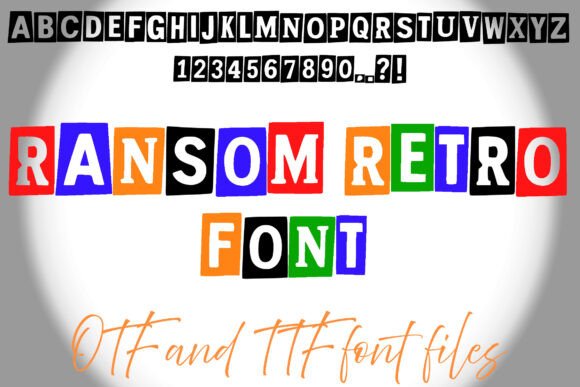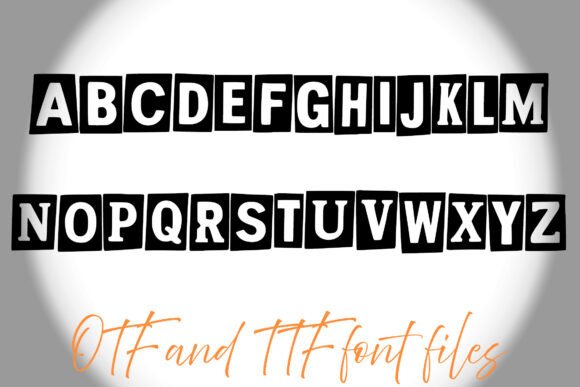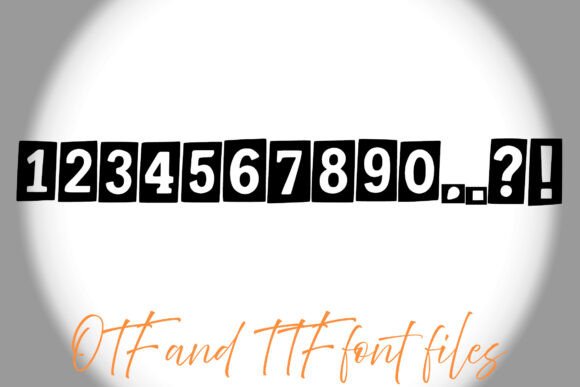
Ransom Retro Font
About the Ransom Retro Font
Welcome to the world of Ransom Retro Font, a typeface that will inspire your next great project. Make a bold and edgy statement with Ransom Retro Font! Inspired by vintage ransom notes and collage art, this funky font mixes styles and colors for a retro-inspired, high-impact design—ideal for album covers, zines, posters, or rebellious branding.
Ransom Retro thrives in headline applications, short impactful statements, and branding projects that demand a bold, rebellious aesthetic. It excels on posters, album art, and packaging where its unique character can shine. However, its highly stylized nature makes it unsuitable for body text or lengthy paragraphs; readability suffers at smaller sizes.
Consider pairing Ransom Retro with a clean sans-serif like Open Sans for a balanced contrast, or a geometric sans-serif for a more modern feel. A classic serif such as Garamond could add a touch of sophistication, providing a counterpoint to the font’s raw energy. Avoid pairing it with other highly stylized fonts, as this risks visual clutter.
The font’s core personality is undeniably bold and rebellious, conveying a sense of vintage grit and playful energy. It’s ideal for brands aiming for a retro-inspired, edgy image, particularly in music, fashion, or street art contexts.